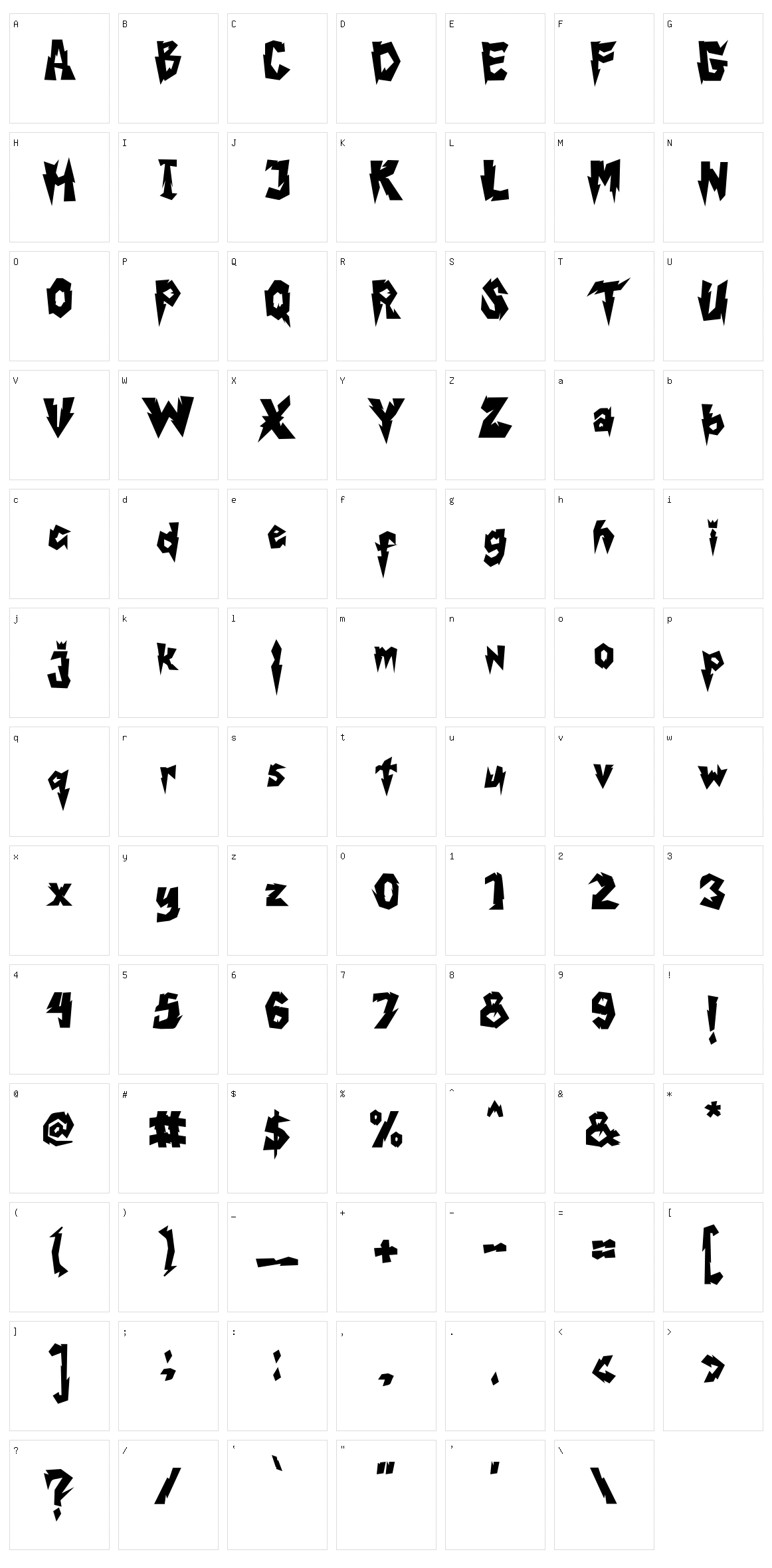
The free font Galagar is carefully designed by Jadatype, showcasing a thoughtful balance of creativity and usability and falls under the Horror font style. When you download the ZIP file, it contains only 6.86 KB of font files, making it lightweight and quick to download. Please review the license details below to understand permitted usage and distribution rights. If license information is not available, we recommend using this font for personal projects only or contacting the author directly for commercial usage permissions.